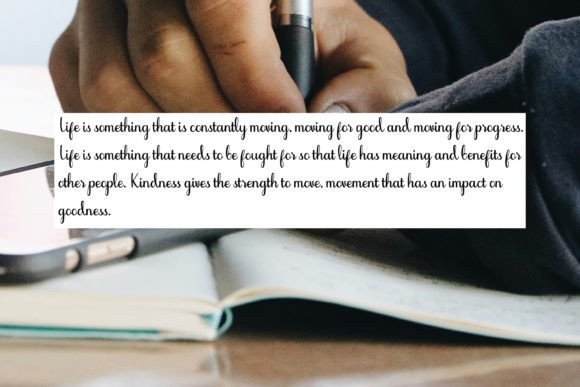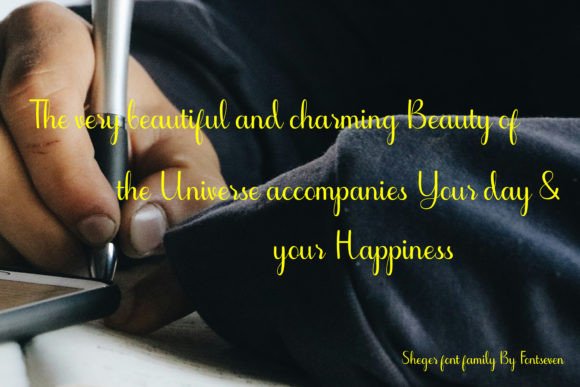
Introduction to Sheger Five Font
Introducing the Sheger Script Family.
This font is based on handwriting Sheger Four is a series of nine versions of the Sheger Font.
Key Features of Sheger Five Font